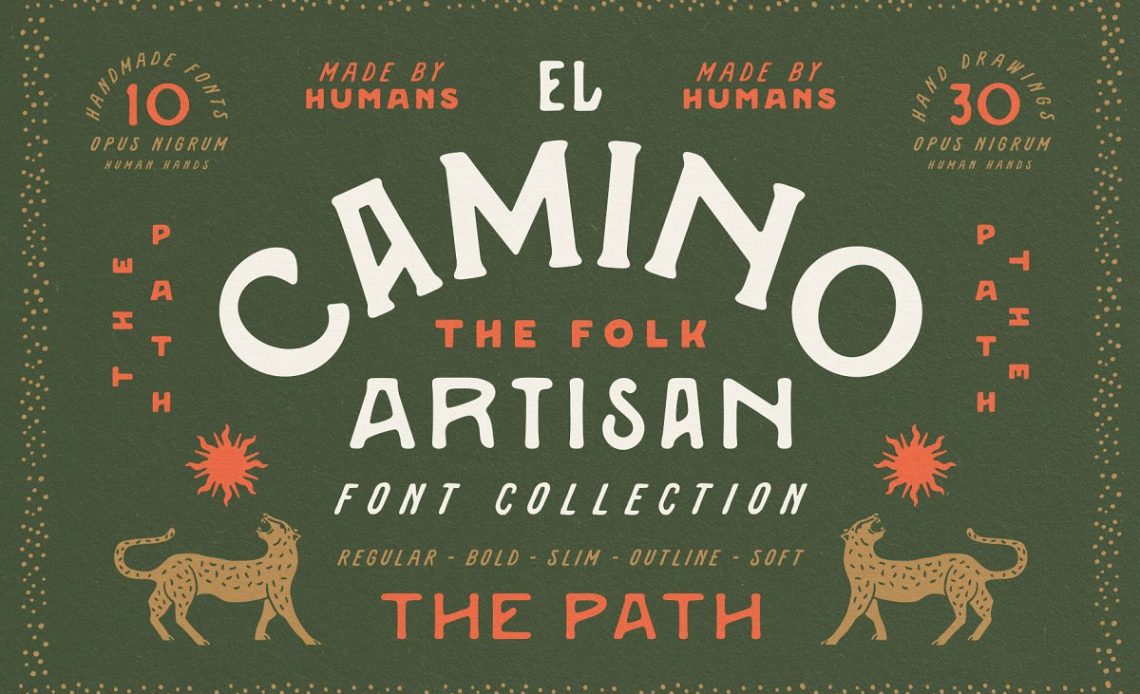
Introducing the El Camino Font Collection + Extras, a stunning font family designed by Gabriel Oviedo. Inspired by the old west, the desolate places, and the deserts of California and Mexico, this collection embodies the spirit of adventure, self-discovery, and learning.
With its rich flavour of whiskey or Mezcal, El Camino represents the journey of each individual in life. It's a handmade font that is perfect for logos, designs, labels, clothes, and anything else you can think of. With its many variations and discretional ligatures, you can play around with the uppercase or combine it with the El Camino Slim and Bold for a unique look.
The collection comes with 12 different fonts, including EL CAMINO Regular, Texture, Outline, Soft Edges, CAPS, and Drawings, and much more. The El Camino Font Collection also supports multilingual characters for various languages, including Czech, Danish, English, Estonian, Faroese, Finnish, French, German, Icelandic, Italian, Norwegian, Polish, Portuguese, Slovenian, Spanish, Swedish, Turkish, and Welsh.
If you're looking for the best fonts for kids designs, El Camino is the perfect choice. The collection includes 18 Premade Designs and 30 Illustration Packs, which are ideal for designers looking for inspiration. With this collection, you'll be able to create eye-catching designs that will leave a lasting impression on your audience.